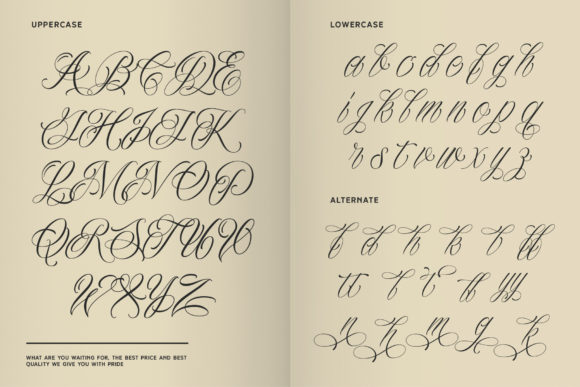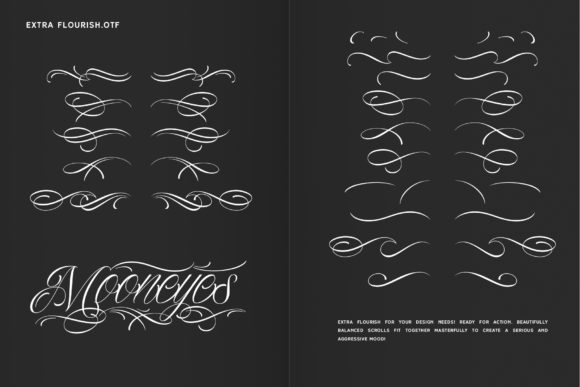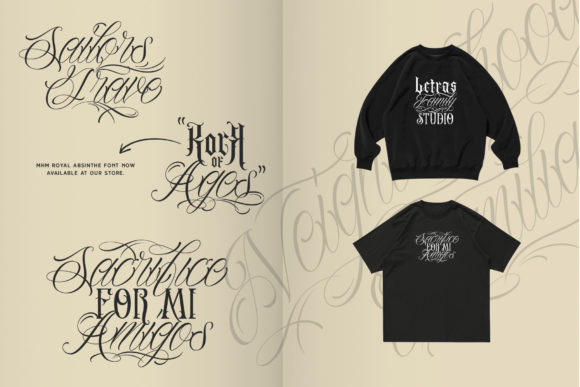
About Neighborhood Font
Neighborhood is a sweet and delicate handwritten font. Dainty and joyful, this font will be ideal for writing wedding invitations, cards or any other design that may need a romantic, personalized touch!